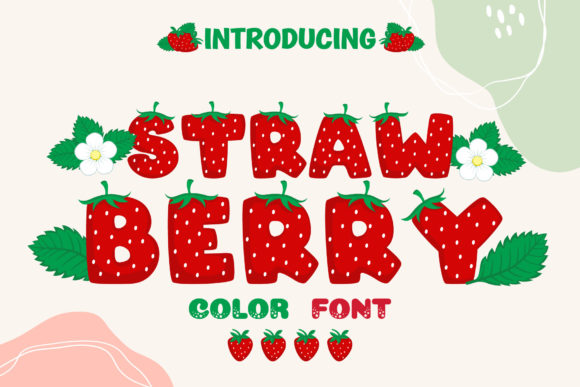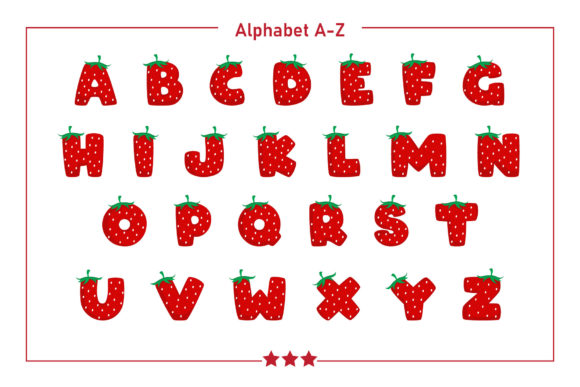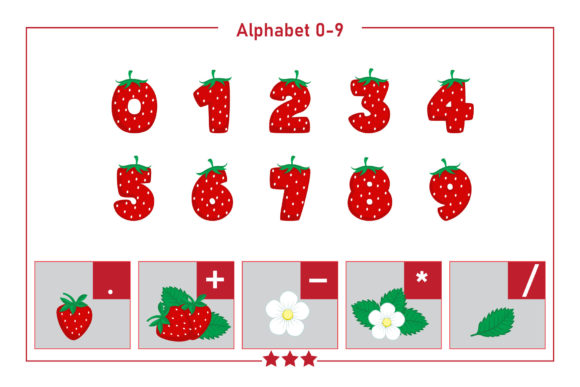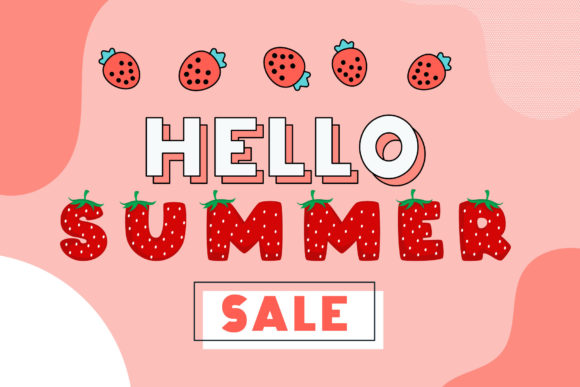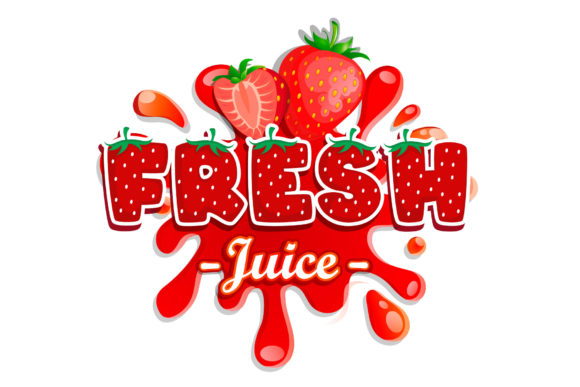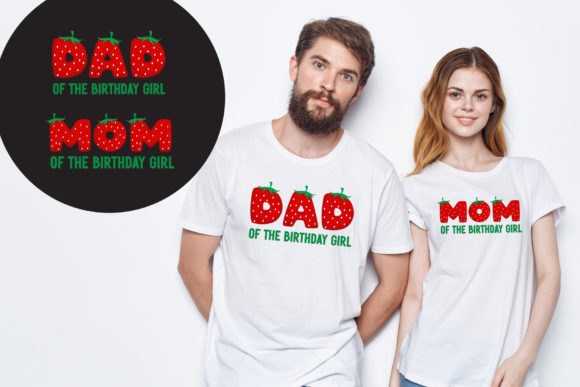
Strawberry Font
Strawberry is a color font designed in the style of strawberry fruit. Looks bright and cute. Fall in love with its authentic feel and use it to create gorgeous invitations, beautiful stationary art, eye-catching social media posts, and cute greeting cards.
Add this beautiful display font to each of your creative ideas, and notice how it makes them stand out.